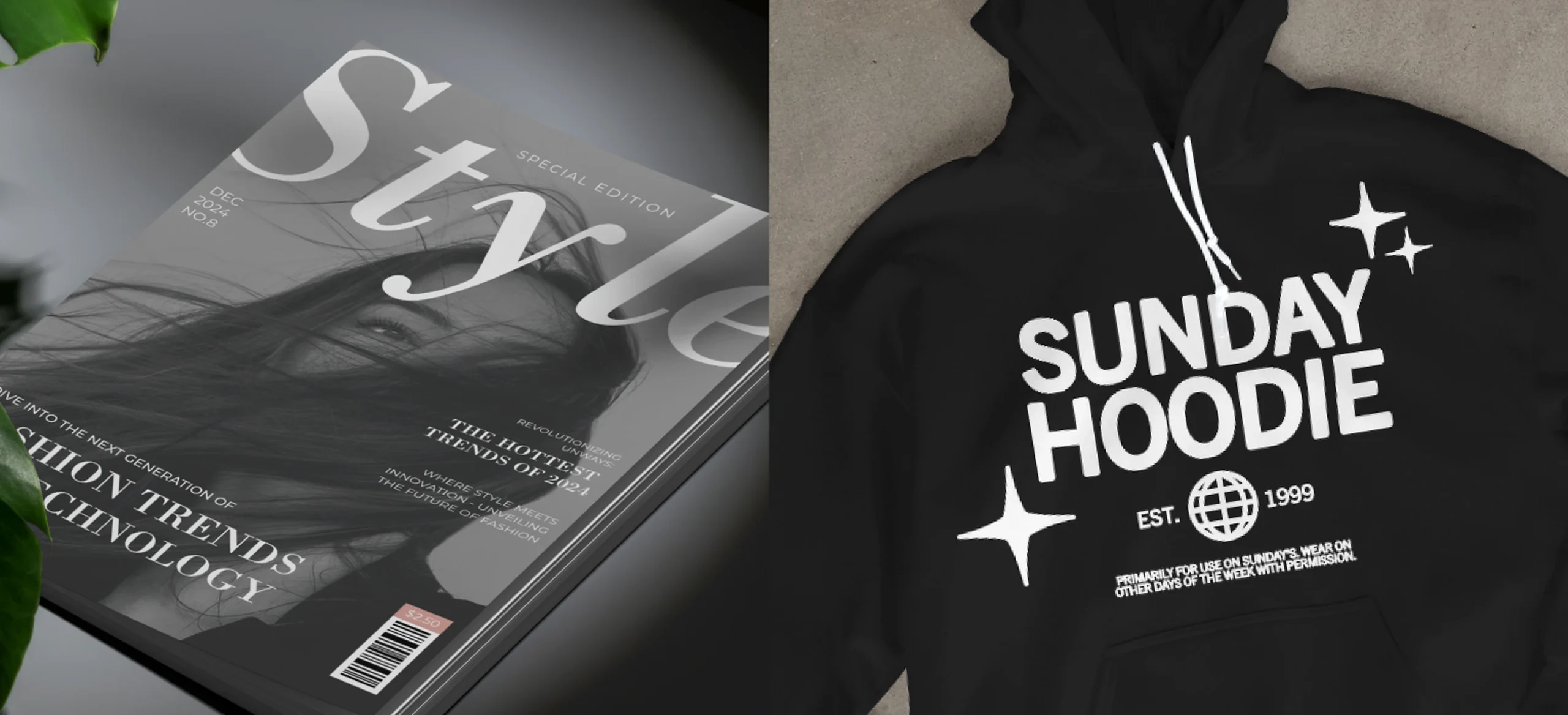
You have a project that needs something instantly professional and reliable, which fonts do you reach out to first? Most probably: Helvetica. Futura. Garamond. Avenir. Bodoni.
Like any other designer, this is the first that comes to mind because they just work. You’ve seen them on packaging, branding, and signage your whole life. Chances are, you’ve used them a hundred times yourself.
In this article, we’ll walk you through the 30+ Monotype font families available in Kittl, when to choose the font (and, for a little fun, what your go-to type choice might say about you). Let’s dive in.
All the Monotype fonts you can use on Kittl
Avenir, the modern optimist
Humanist sans serif
Avenir is what you use when Helvetica feels too corporate and your custom sans is over budget. It has these slightly tapered strokes that keep it from feeling mechanical.
Brands like Airbnb, Spotify, and Apple Maps use it for exactly that reason. It pairs well with almost anything, scales beautifully, and clients always approve it.
Where it shines: Tech startups, lifestyle brands, digital products, modern packaging.
If this is your go-to, you’re probably:
- Drawn to balanced, human-centered design.
- Someone who values clarity without coldness.
- A creative who builds brands that feel approachable.
Baskerville, the refined classic
Transitional serif – Monotype fonts
Elegant and readable, Baskerville brings heritage and sophistication. You’ll see it in Chanel’s campaigns, The Times masthead, and classic book typography. It’s a favorite for brands that want to look timeless without feeling old-fashioned.
Where it shines: Luxury branding, editorial design, print materials, stationery.
If this is your go-to, you’re probably:
- Drawn to subtle craftsmanship.
- Someone who values tradition and trust.
- A designer who believes elegance never ages.
Bodoni, the statement maker
Modern serif
Bodoni is confident and striking. It has high contrast, dramatic, and instantly recognizable. Used by Vogue, Calvin Klein, and countless fashion houses, it’s the font that knows how to make an entrance.
The thin strokes disappear on screen at small sizes, so keep it large or keep it print.
Where it shines: Fashion, beauty, editorial design, posters.
If this is your go-to, you’re probably:
- Someone who loves visual impact.
- Drawn to structure with flair.
- The creative who knows exactly when to turn heads.
Century Gothic, the modern classic
Geometric sans serif – Monotype fonts
Century Gothic is geometric but friendly. The kind of sans serif that looks clean in a layout but still has personality. It’s often seen in education, corporate materials, and digital design, thanks to its open forms and excellent readability.
Where it shines: Branding, websites, product design, infographics.
If this is your go-to, you’re probably:
- A designer who loves clarity and space.
- Someone who enjoys structure but avoids rigidity.
- The type who appreciates a quiet, confident font.
Cooper Black, the retro rebel
Soft serif display
Rounded, bold, and full of charm — Cooper Black has been a pop-culture staple since the 1960s, appearing on The Beach Boys albums and retro packaging. It’s cheerful without trying too hard.
Where it shines: Retro branding, posters, merch, playful campaigns.
If this is your go-to, you’re probably:
- Fun, nostalgic, and unafraid of bold choices.
- Someone who sees design as personality, not polish.
- The creative who knows how to make nostalgia feel fresh.
Courier New, the monospaced classic
Monospace serif
Courier New is typography’s typewriter. It’s used in scripts, coding interfaces, and editorial design to evoke structure, simplicity, and nostalgia. It’s a reminder that even fixed-width letters can carry personality.
Where it shines: Editorial projects, tech branding, retro-inspired designs.
If this is your go-to, you’re probably:
- A minimalist who loves structure.
- Someone who finds beauty in simplicity.
- A creative who likes subtle nods to history.
DIN, the precision engineer
Industrial sans serif – Monotype fonts
Originally designed for industrial use, DIN is all about function and consistency. It’s used by Deutsche Post, Audi, and countless modern brands that want to look systematic and exacting. It’s crisp, versatile, and makes everything feel intentional.
Where it shines: Corporate identity, transport, tech products, signage systems.
If this is your go-to, you’re probably:
- Detail-driven and logical.